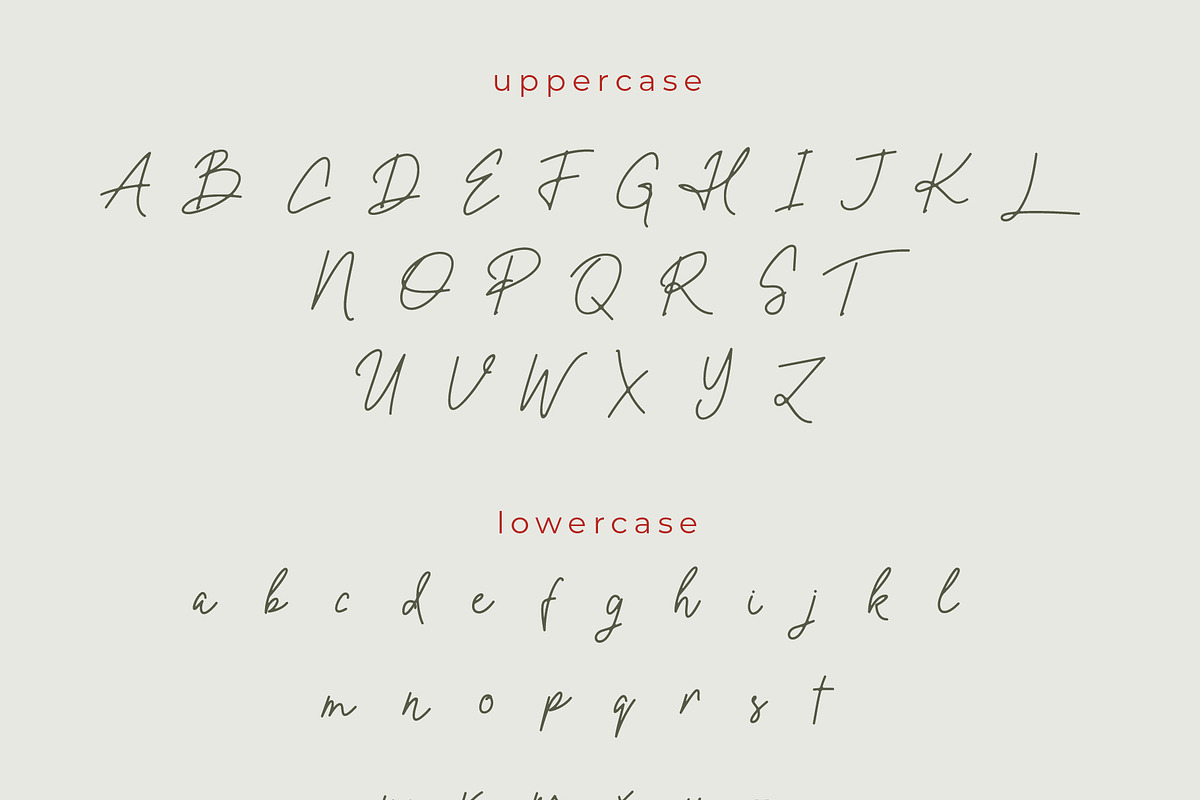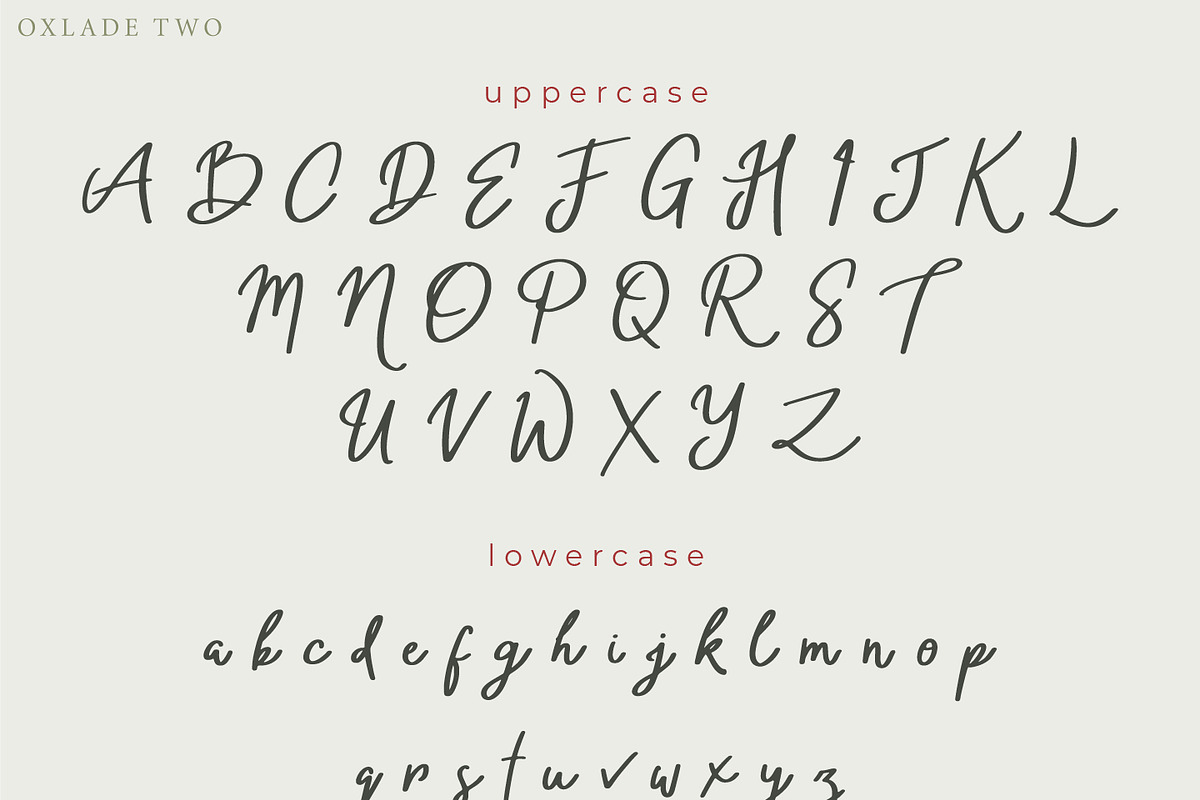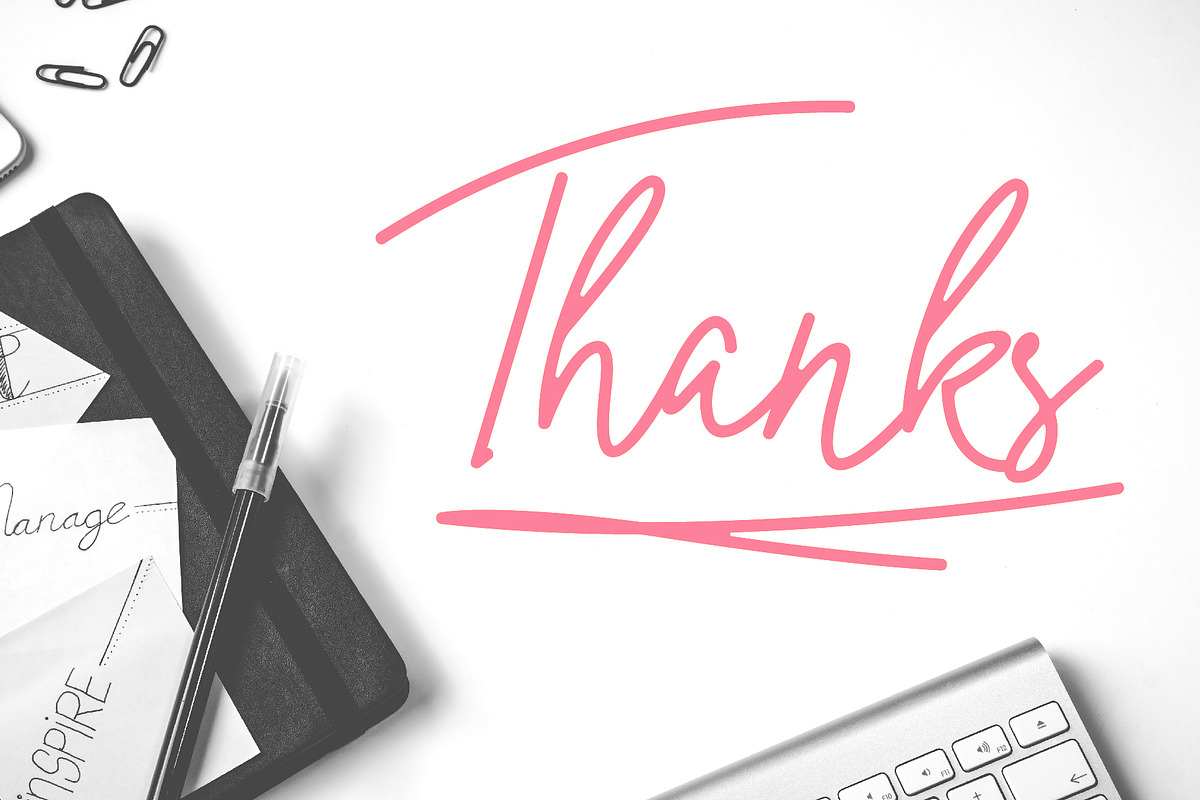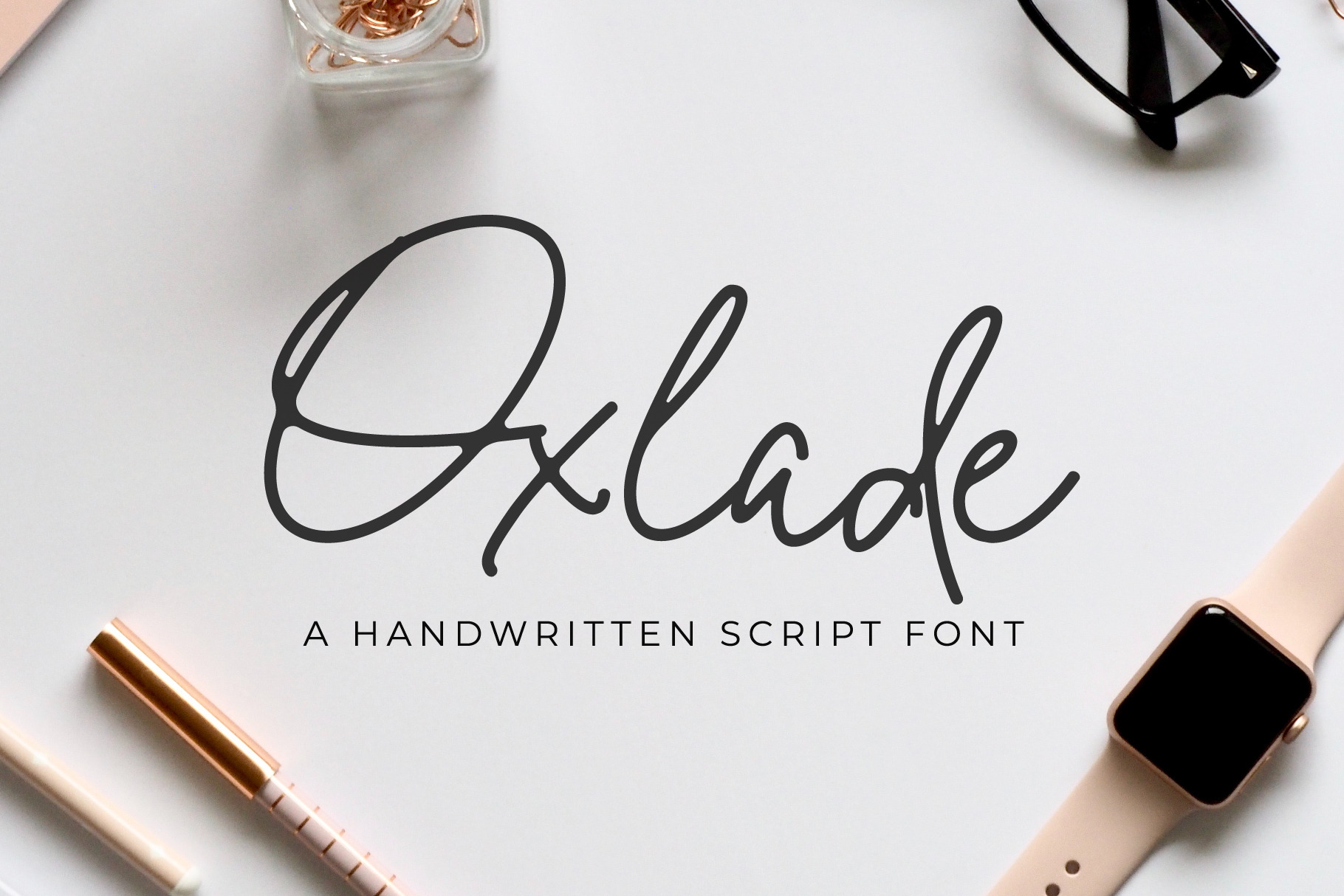
Oxlade Script Font
I'm a new handwritten signature font named Oxlade or you can call me Ox. I've been created to make signature easy for you. Also you can use Ox for logo type, packaging, product design and more.
I feature :
- Number & Punctuation
- Ligatures (klik the uppercase preview to see the ligatures)
- Multi language